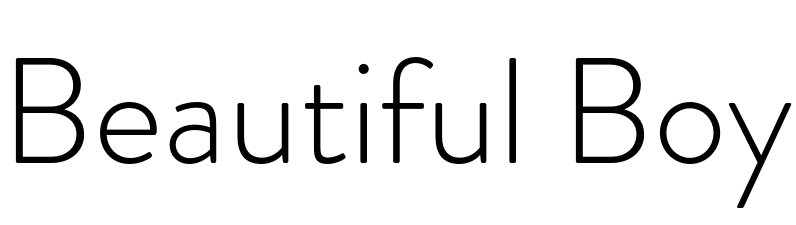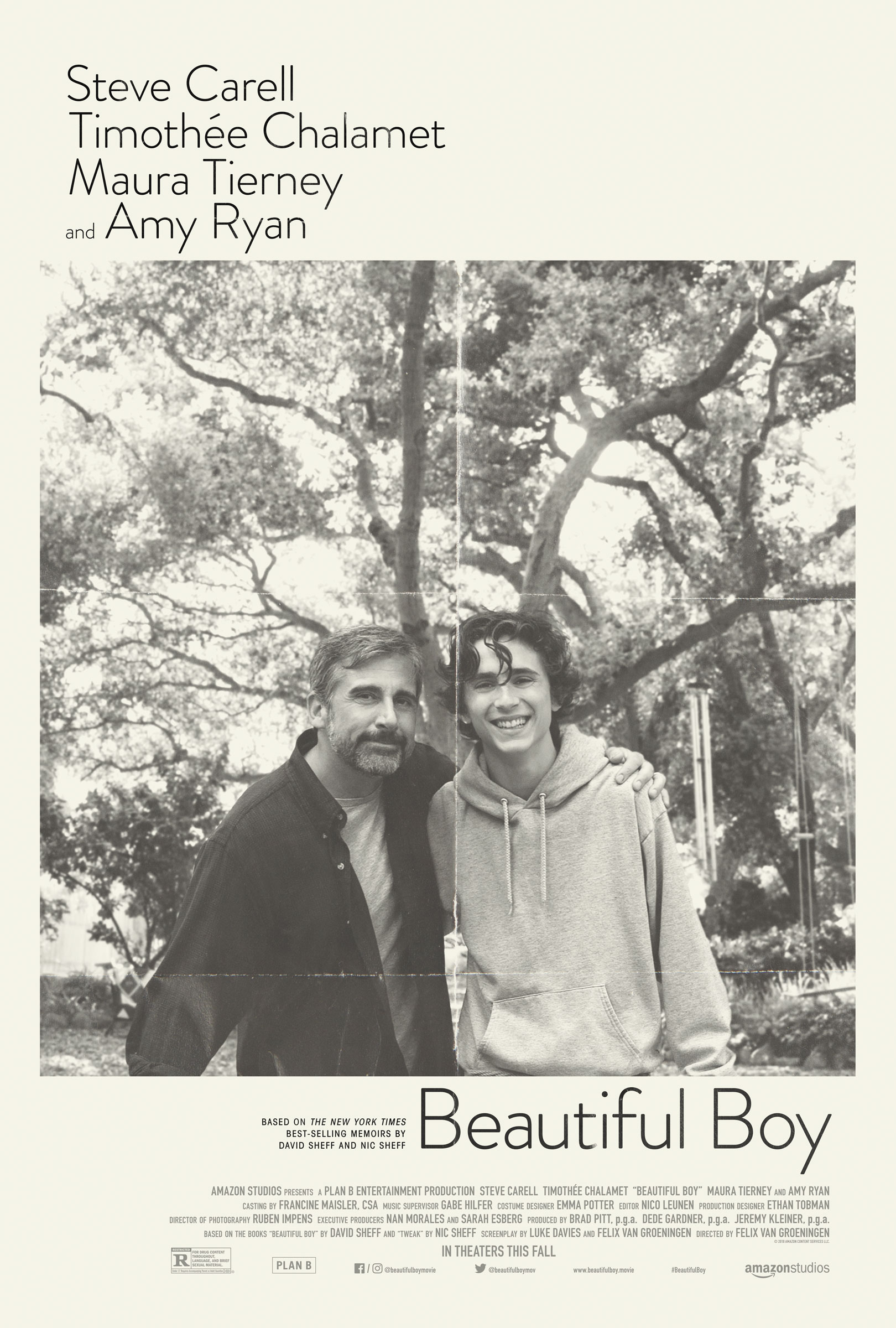
Beautiful Boy Font
BiographyBeautiful Boy is a 2018 drama film directed by Felix Van Groeningen based on the memoir "Beautiful Boy: A Father's Journey Through His Son's Addiction" by David Sheff. The film follows the story of Nic Sheff (Chalamet), a young man struggling with addiction, and his father David (Carell), as they navigate Nic's journey toward recovery.
Brandon Grotesque typeface is used in the main poster and promotional website for the film from HVD Fonts. Brandon Grotesque is a sans-serif font family with six weights and corresponding italics created by Hannes von Döhren in 2009–2010.